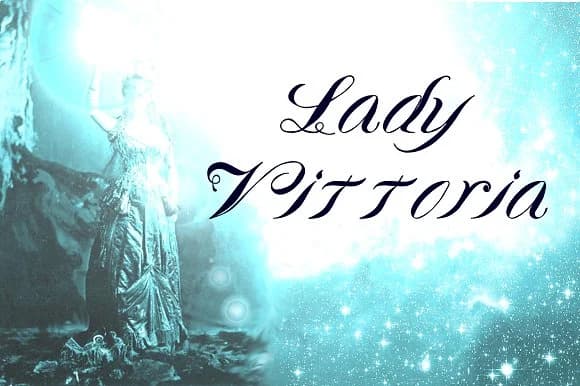
About Archbishop Font
Archbishop Font by Proportional Lime is a flowing script typeface that brings handcrafted warmth to professional design work. With its graceful letterforms and naturally expressive character, this font captures the personal touch that resonates with audiences seeking authenticity over sterile perfection. The typeface lends itself particularly well to considered design applications. Wedding stationery sets benefit from its refined elegance, while greeting card layouts gain an intimate quality that speaks directly to recipients. Small business owners find value in using Archbishop for boutique product labels, establishing brand personality that stands out on retail shelves. Social media graphics gain visual distinction through its distinctive curves, and event-based design projects, from save-the-dates to restaurant menus, carry added sophistication through this script's measured restraint. Archbishop proves equally at home in editorial contexts and brand identity work where personality matters more than formal severity. The letterforms are designed to reproduce cleanly at multiple scales, making it suitable for both digital composition and craft applications where precision counts. Whether developing a complete visual system or supplementing a single project with handwritten appeal, designers appreciate how the typeface maintains legibility while preserving its character-driven nature. Bring Archbishop Font into your next project by finding it on Creative Fabrica.
Archbishop Font is a script font that shines as a display or heading face. Pair it with a clean sans-serif or serif font for body text β the contrast creates a clear hierarchy while the two styles stay balanced and easy to read.